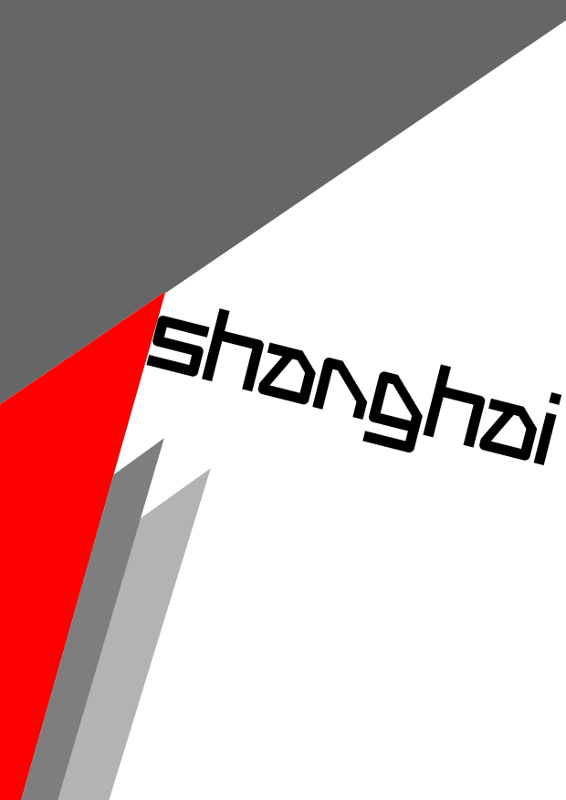
Note by NathanCaldecott | |
"This is a complimentary font to Beijing. The diagonals run in the opposite direction, and overall the font is more wedged and complex. Enjoy!" Made in 2009. |